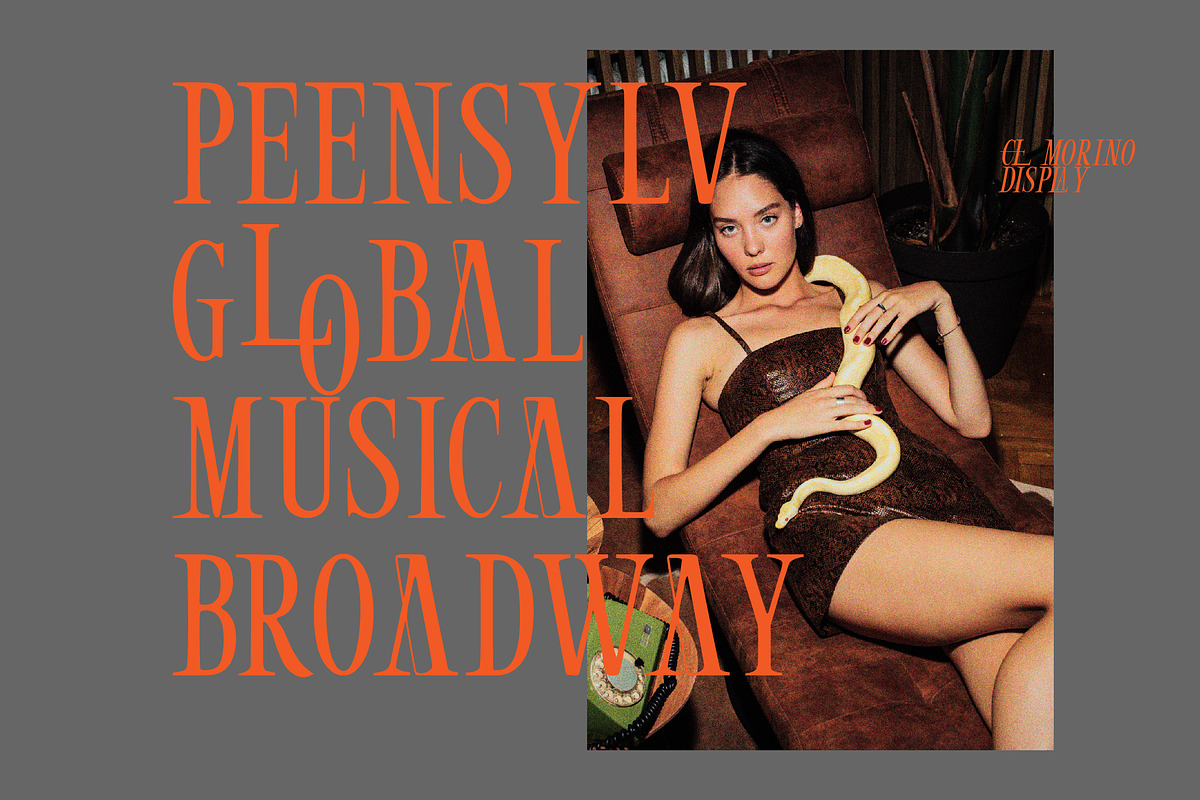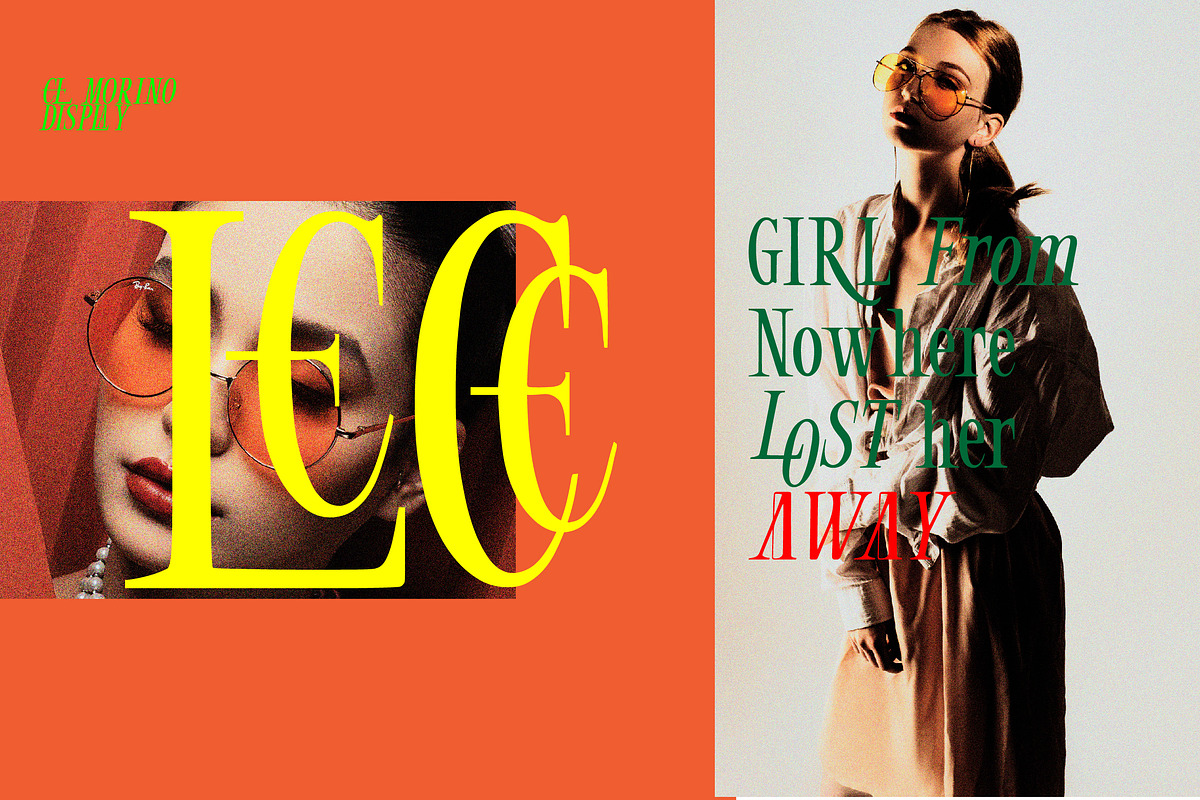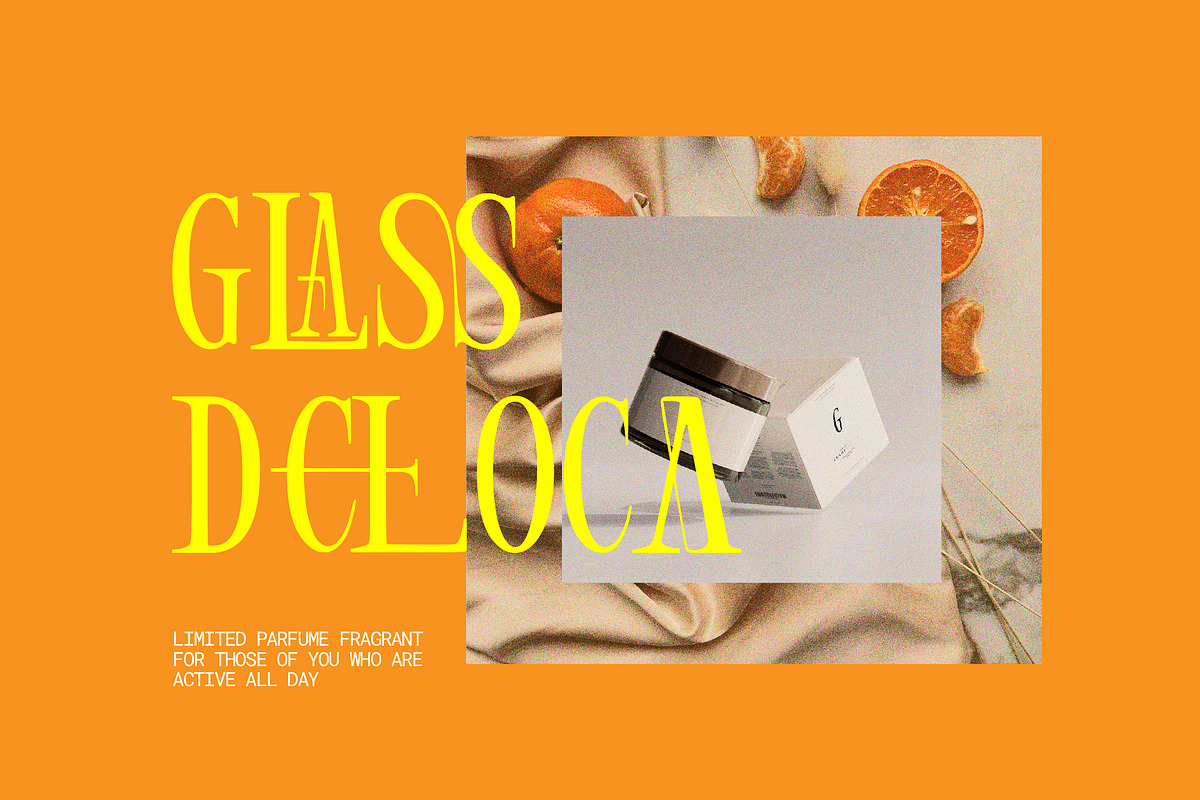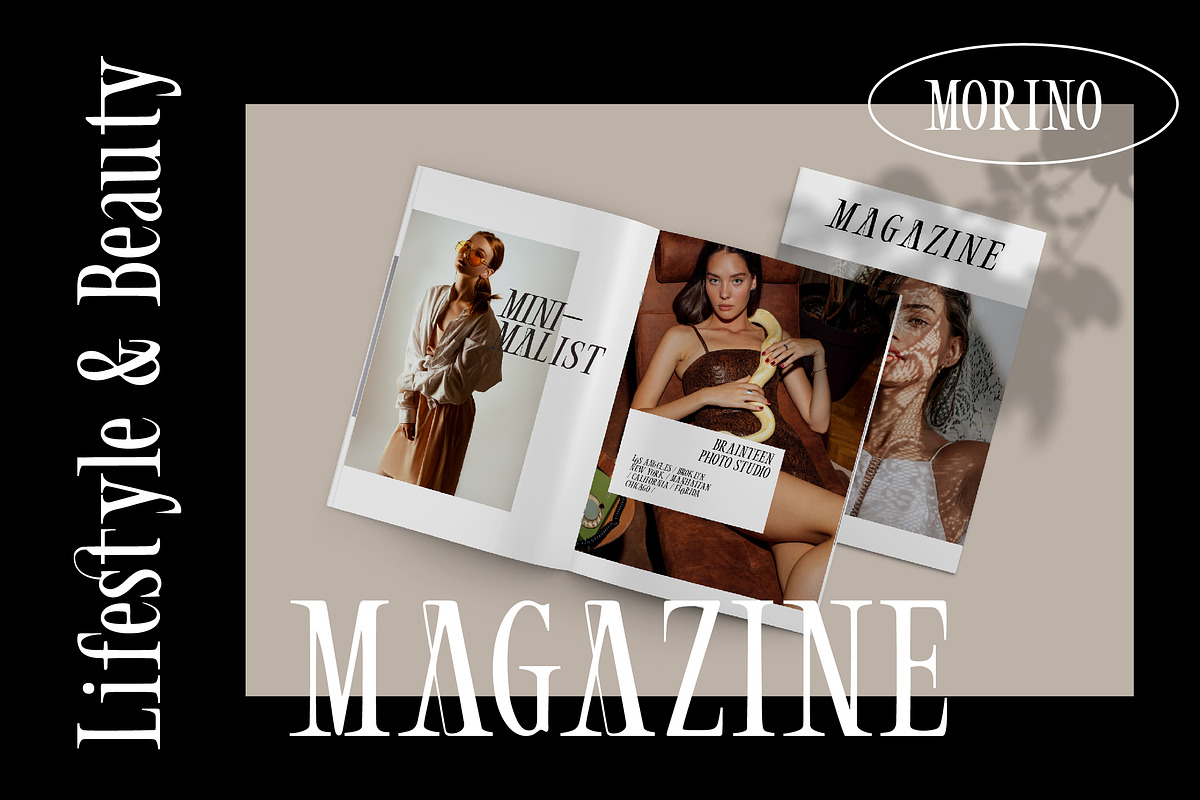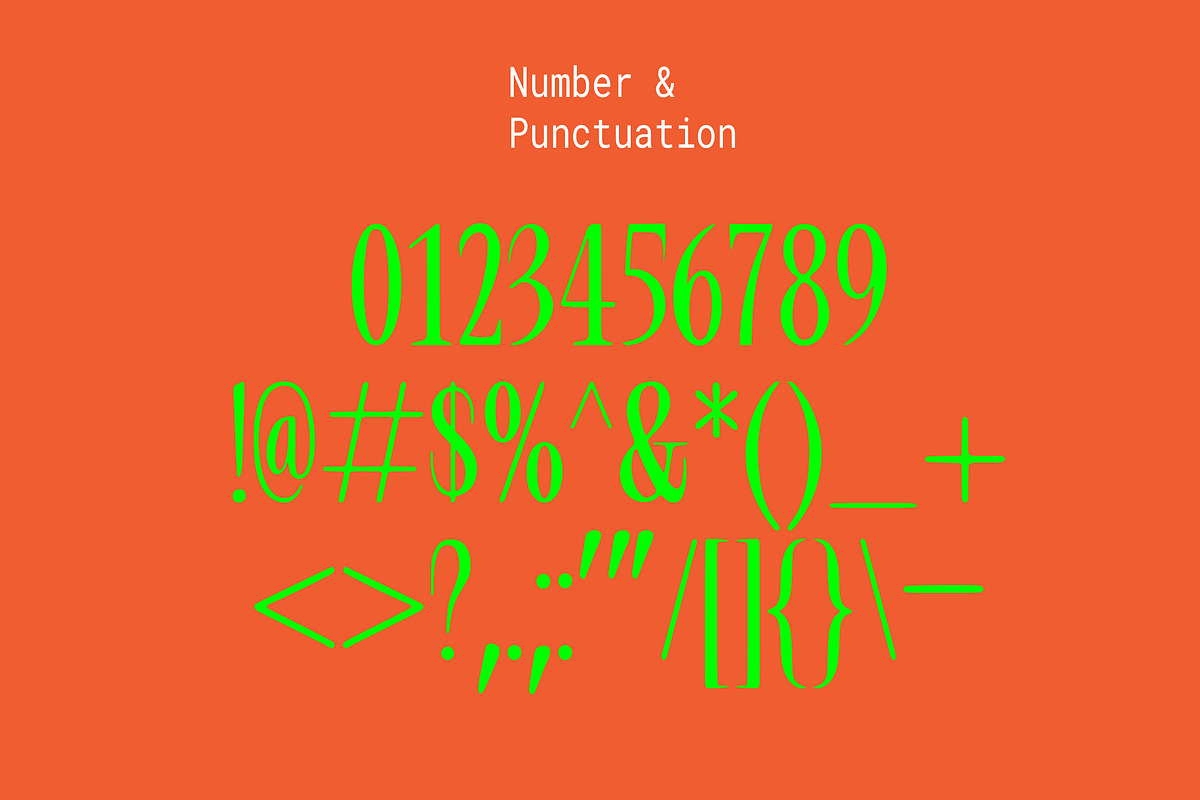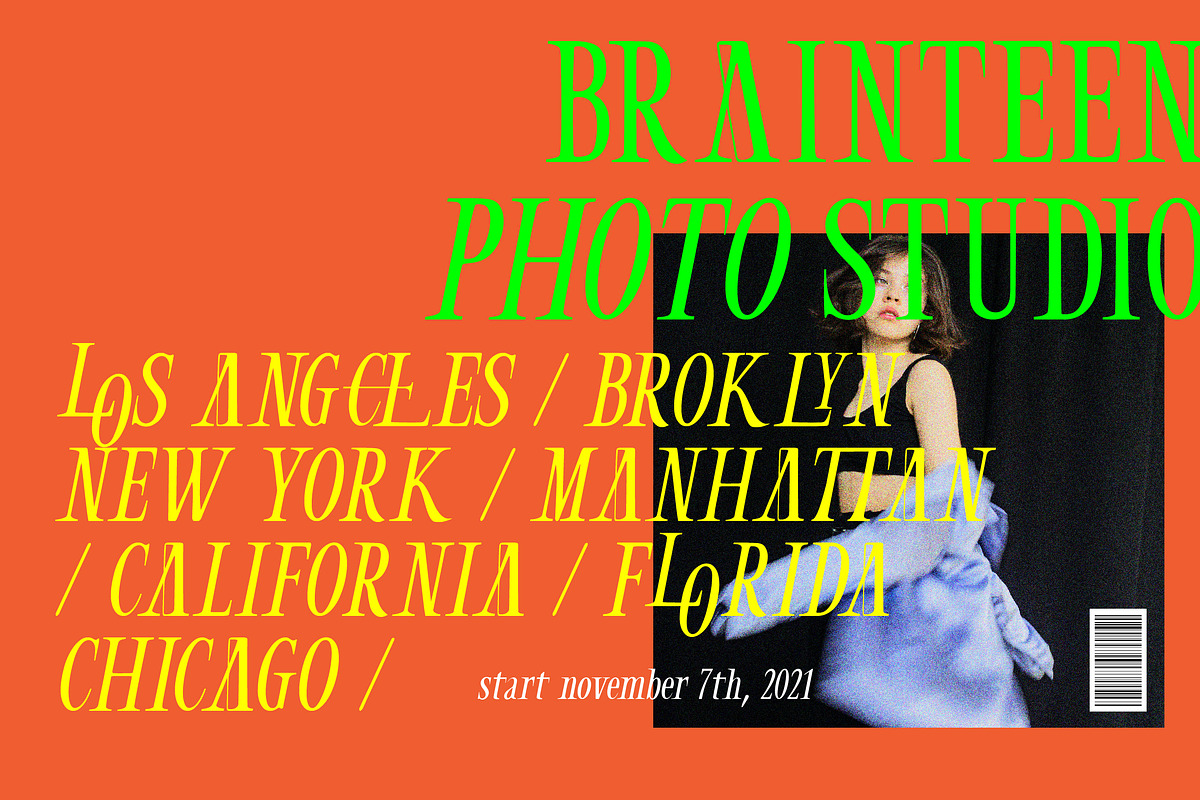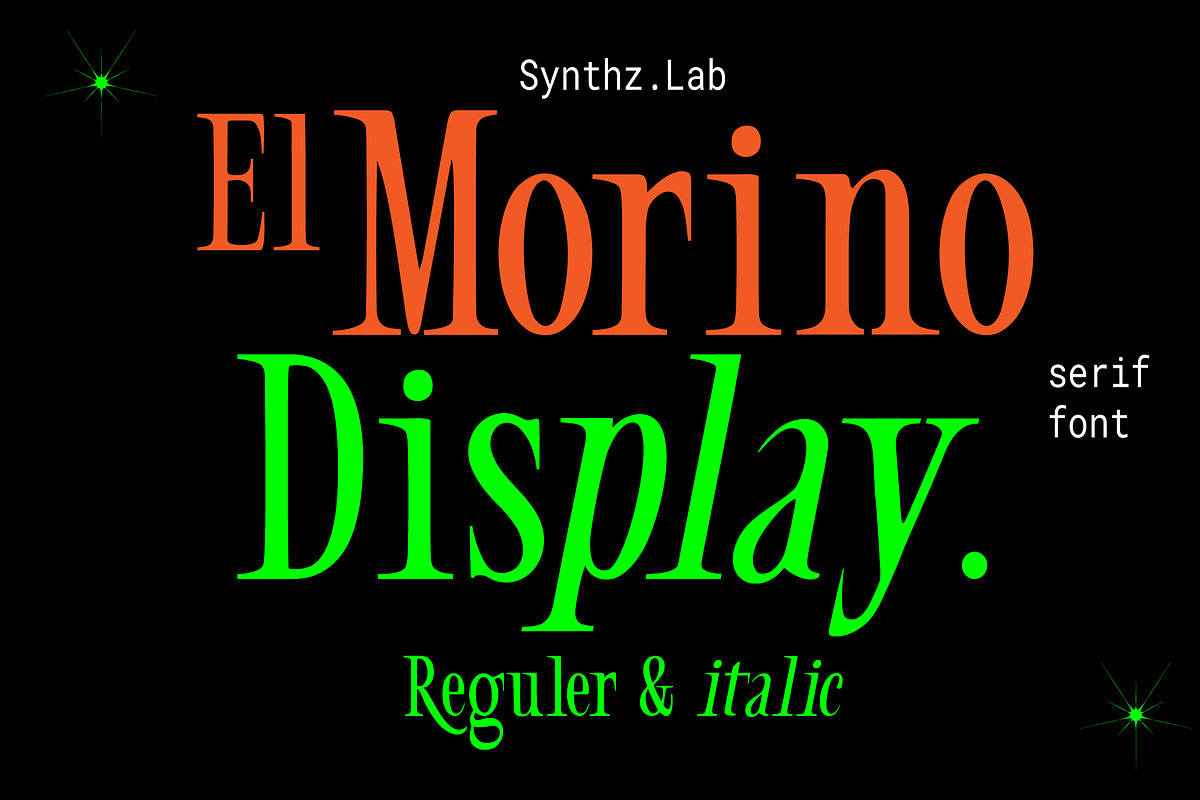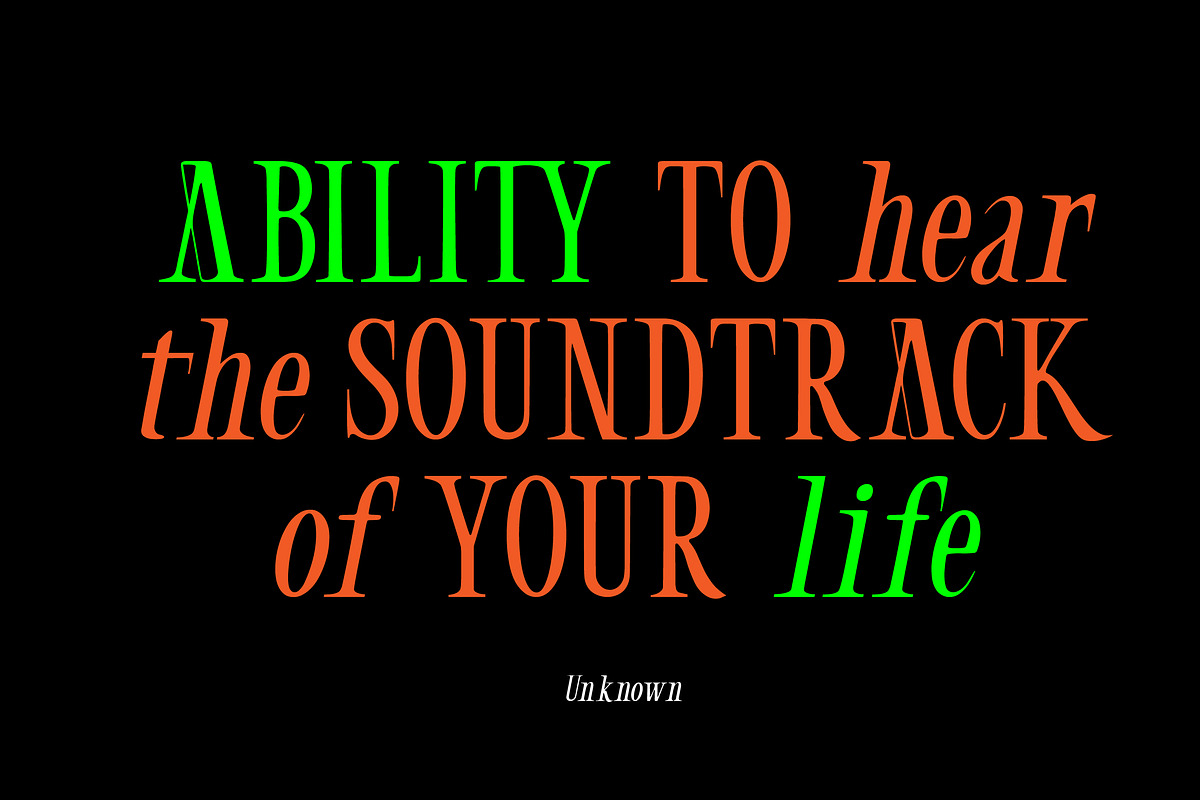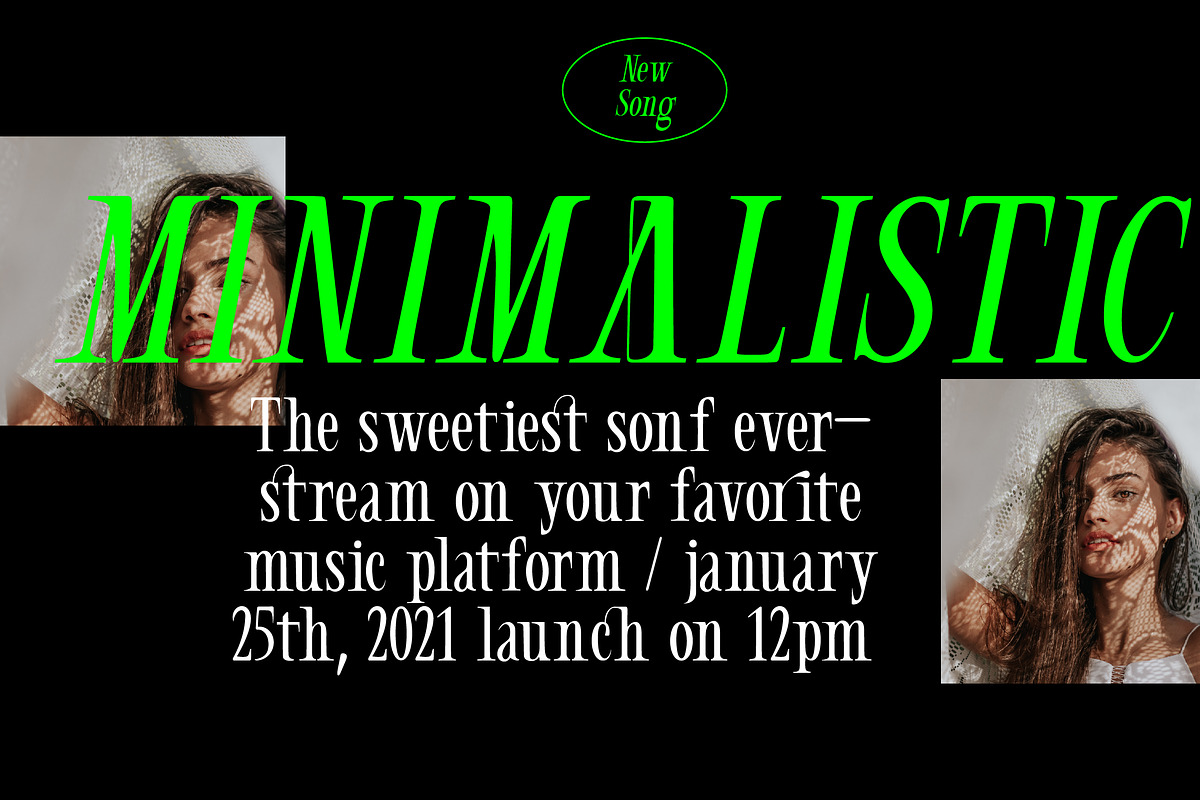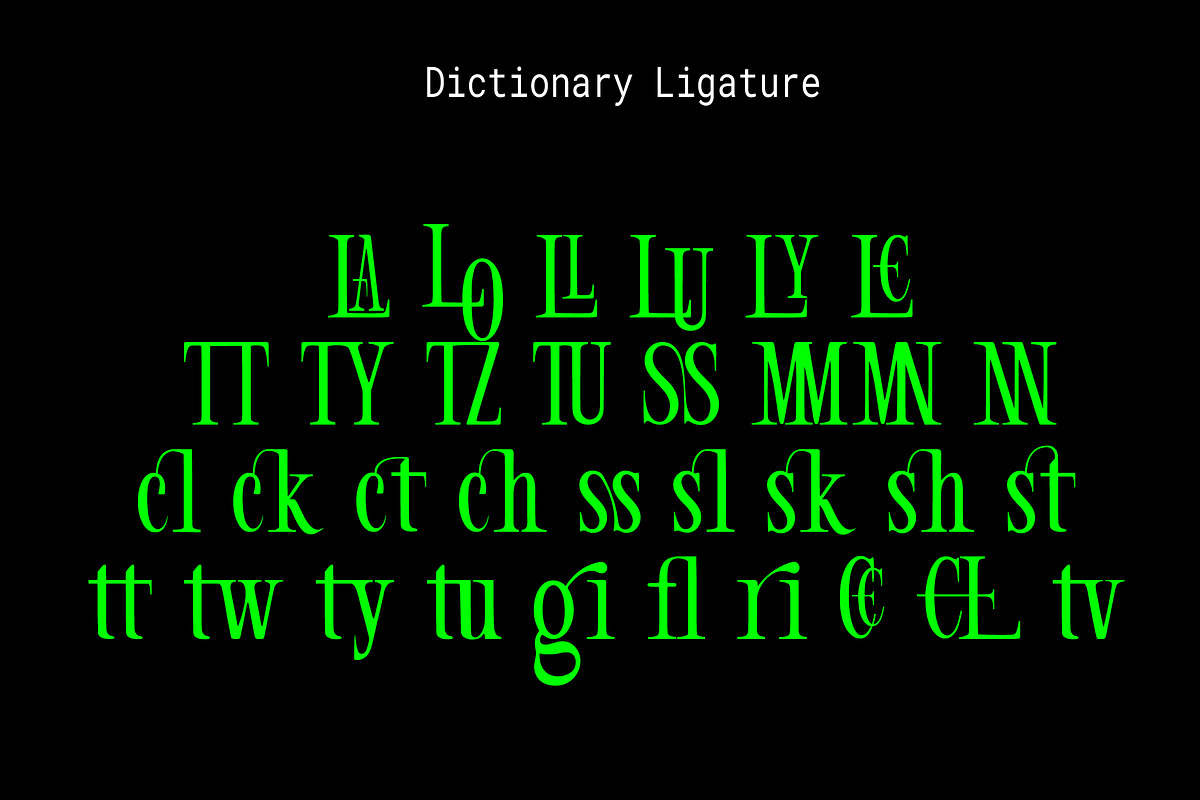
El Morino-New Trendy Serif
A fresh & modern new El Morino serif with a strong, basic dancing style! So beautiful on invitations such as greeting cards, branding materials, business cards, quotes, posters and more!
The El Morino Display Typeface is part of a powerful and modern display family. This typeface is impressive on display size and easy to read in text size, while the sharp shape of the triangular serifs and distinctive typeface show its strength in impressive logo design and editorial use.
Harmond comes with style, strength and elegant contrast, featuring an extended Latin character set from. El Morino is poised to be like the top models on the design catwalk, making your projects look classic yet contemporary, well-tuned but bold, and elegant as the ultimate in luxury fashion.